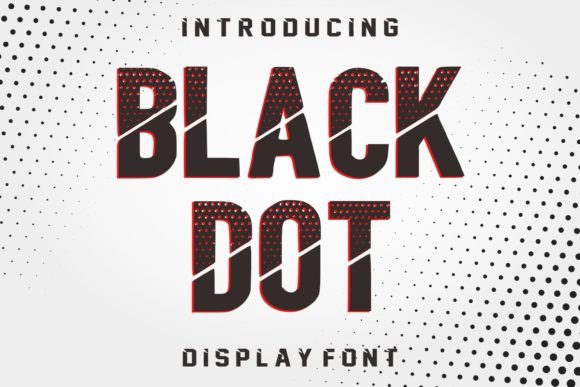
Introducing Black Dot, the remarkable display font that adds a captivating touch to your creations. Its bold and dramatic presence commands attention, making it ideal for titles, logos, and any text that demands a powerful impact.
Crafted by the talented Riki.studio, Black Dot is a true masterpiece that complements any project. Whether you're designing business papers, posters, or website headers, this font will elevate your work to new heights. Its versatility makes it suitable for a diverse range of applications, from formal to whimsical.
With Black Dot, you'll experience the freedom to express yourself creatively. Its unique aesthetic adds a touch of sophistication and intrigue, drawing the eye and captivating your audience. Its crisp lines and dynamic curves create a visual symphony that will leave a lasting impression.
Black Dot is not just a font; it's an indispensable tool for designers who seek to make a bold statement. Embrace its power to transform ordinary text into extraordinary works of art. Let Black Dot ignite your imagination and unleash your creativity today!